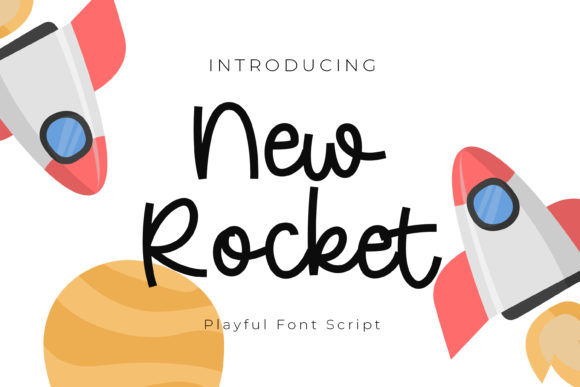
Prepare to be swept off your feet by New Rocket, an enchanting script font that promises to ignite your imagination and transform your designs into heartfelt masterpieces.
Indulge in the sweet and friendly embrace of New Rocket, a font that flows effortlessly with the grace of a gentle breeze. Its natural and unique style effortlessly complements a myriad of design concepts, inviting you to explore boundless creative possibilities.
Let New Rocket become the messenger of your most romantic sentiments, guiding your written expressions with unparalleled charm. With its captivating allure, this font will captivate the hearts of your readers, leaving an indelible mark on their souls.
Whether you're crafting heartfelt love letters, designing enchanting invitations, or simply seeking to add a touch of whimsy to your projects, New Rocket stands ready to elevate your creations to new heights. Its versatility knows no bounds, allowing you to weave a tapestry of emotions through the written word.
So, embark on a captivating journey with New Rocket, where the limits of your imagination dissolve and the magic of typography takes flight. Allow this extraordinary font to inspire your designs, ignite your passions, and connect with your audience on a profoundly emotional level.